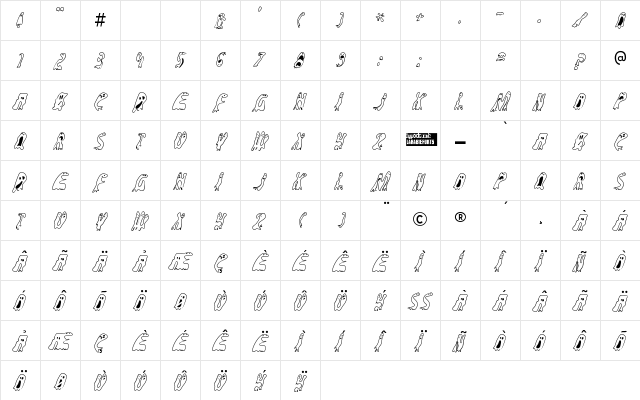
GroovyGhosties Regular
Design Context for GroovyGhosties
GroovyGhosties is a composed and adaptable typeface that performs quietly and consistently across a wide range of design contexts.